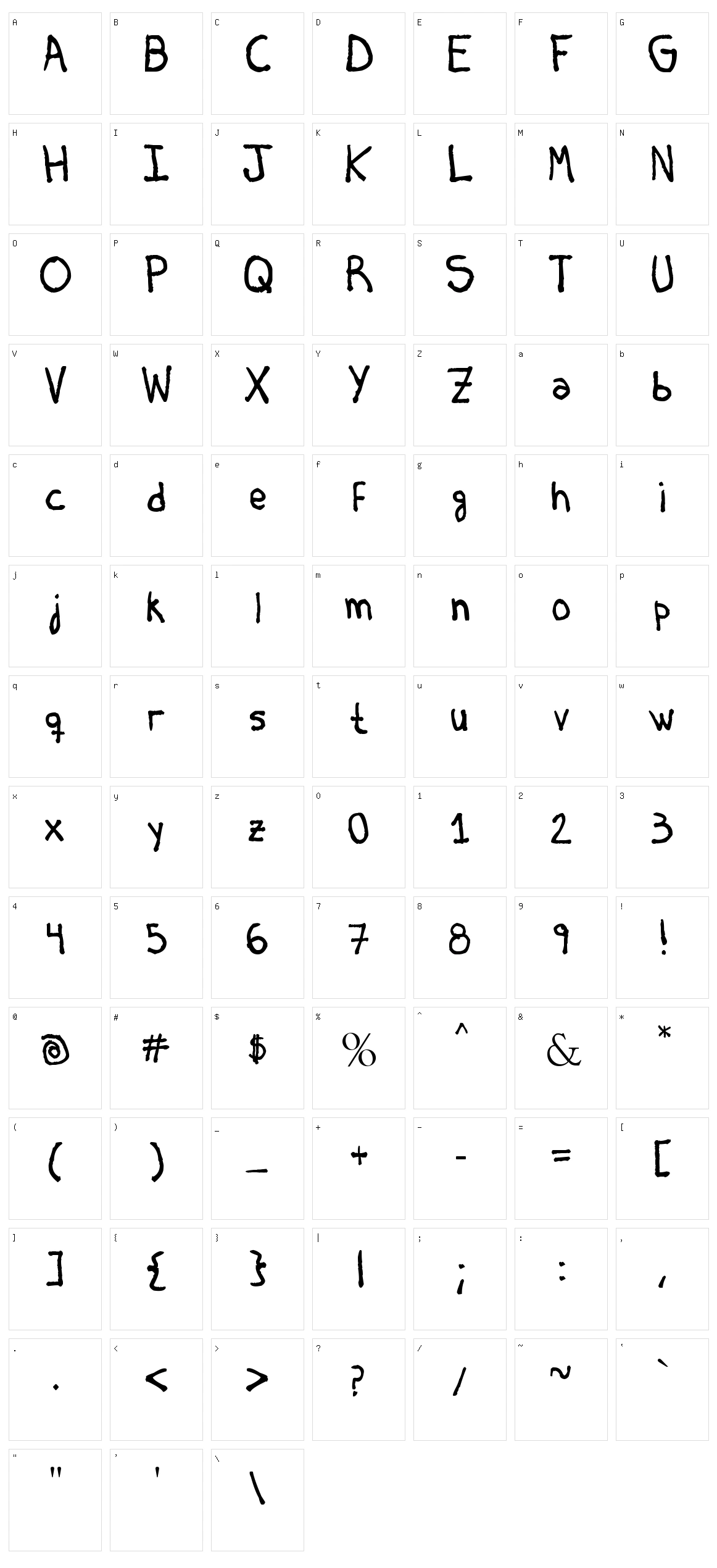
The free font Briasco Rustic is carefully designed by Juan Ignacio Briasco, showcasing a thoughtful balance of creativity and usability and falls under the Script font style. When you download the ZIP file, it contains only 29.35 KB of font files, making it lightweight and quick to download. Please review the license details below to understand permitted usage and distribution rights. If license information is not available, we recommend using this font for personal projects only or contacting the author directly for commercial usage permissions.